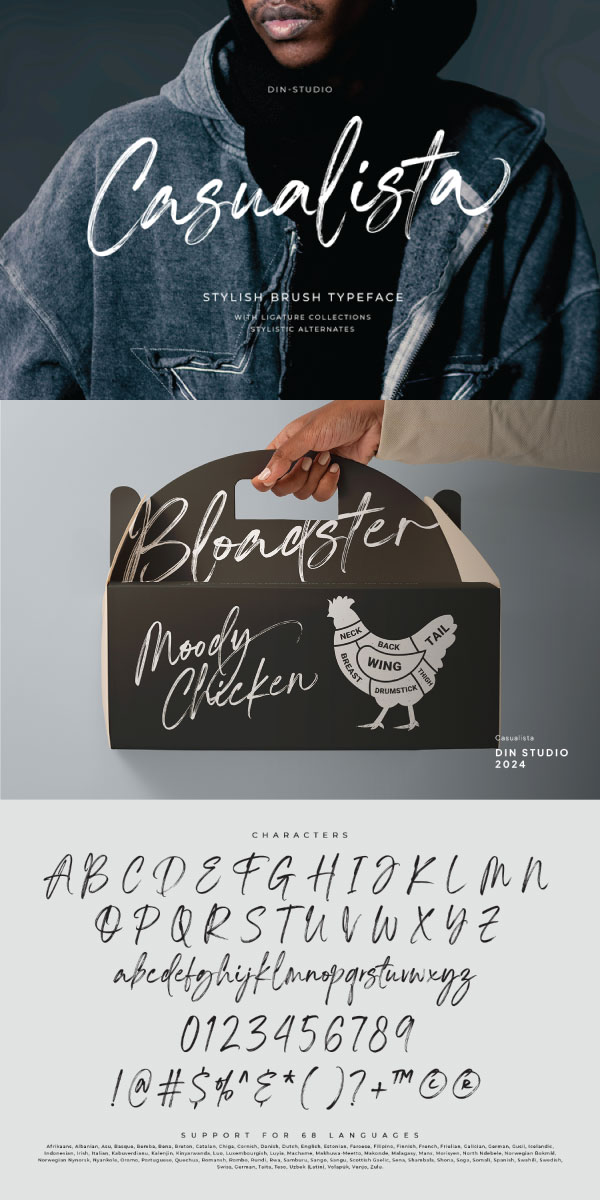
Casualista Font
About Casualista
Casualista is a charming handwritten font that effortlessly captures the essence of casual elegance. Crafted with detailed brushes, each letter flows seamlessly into the next, creating a sense of continuity and fluidity that mimics the natural rhythm of handwriting.
With its connected letters and intricate brush detailing, Casualista exudes warmth and authenticity, adding a personal touch to your designs. The flowing strokes and organic shapes give this font a relaxed and inviting feel. In addition, enjoy the features here.